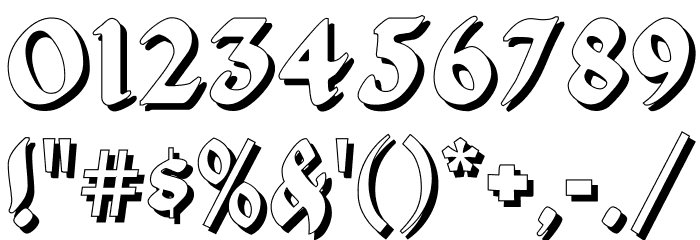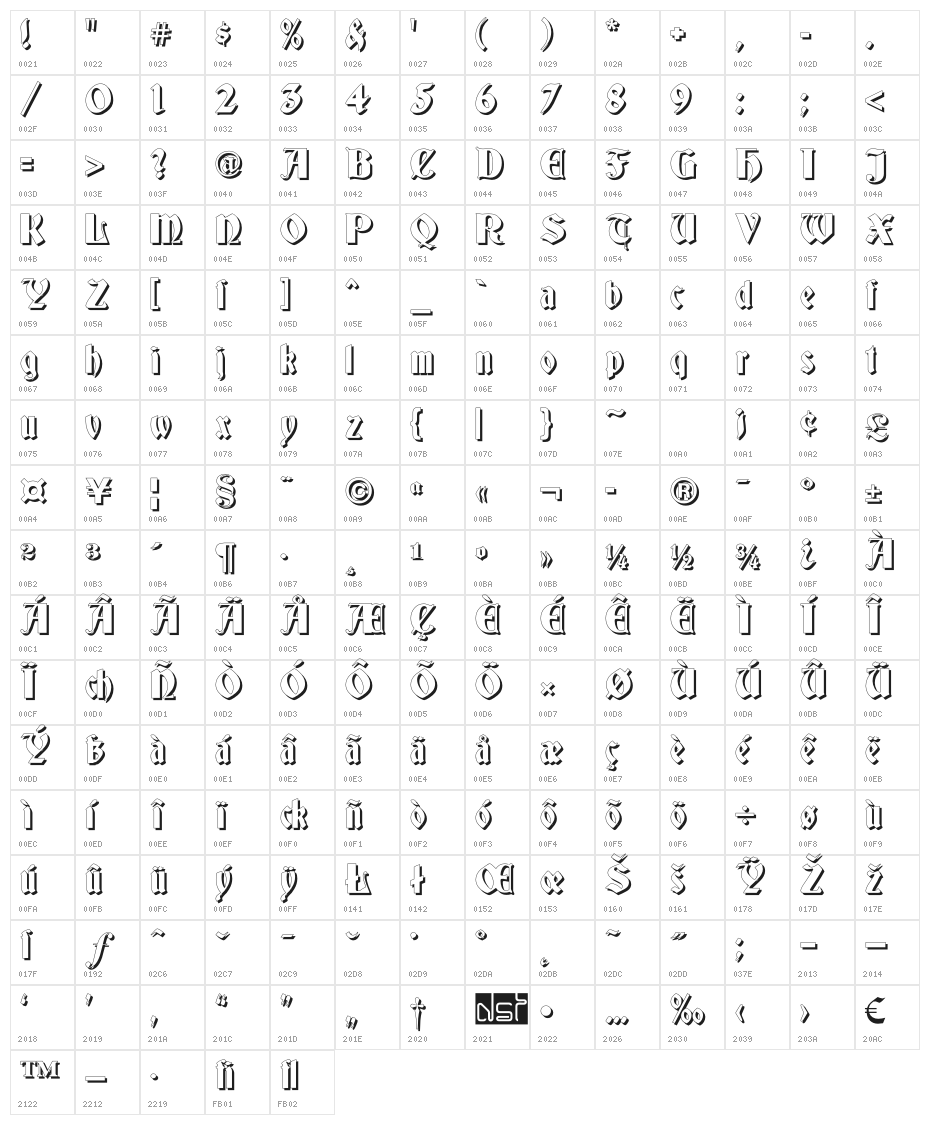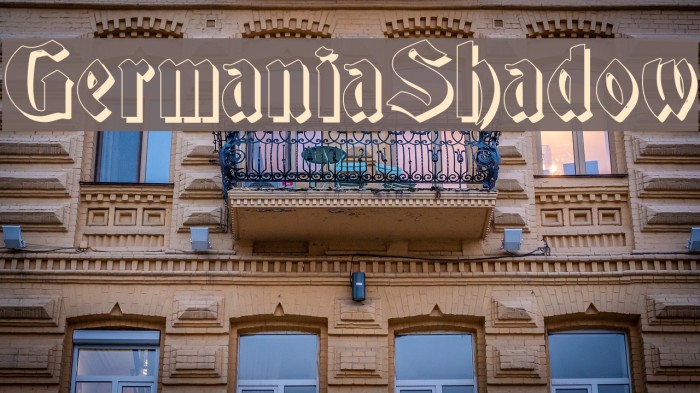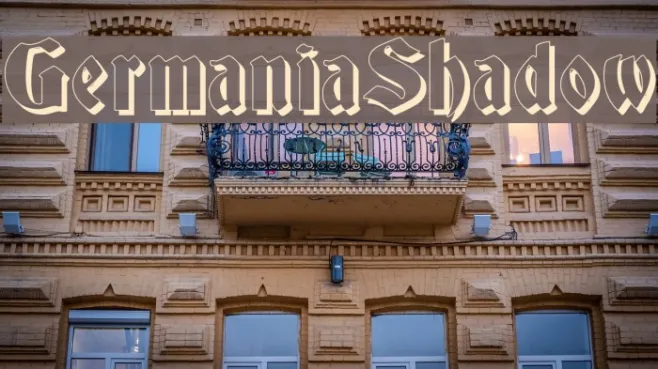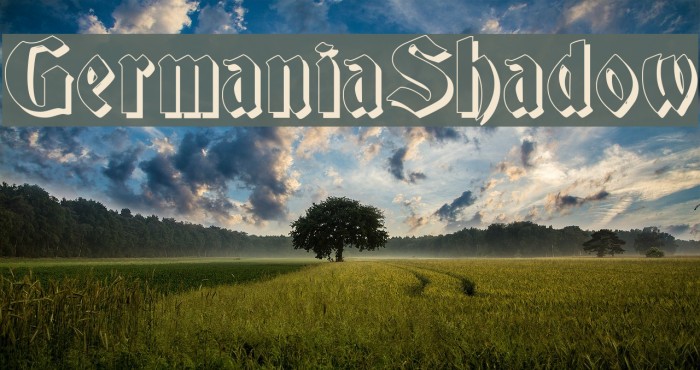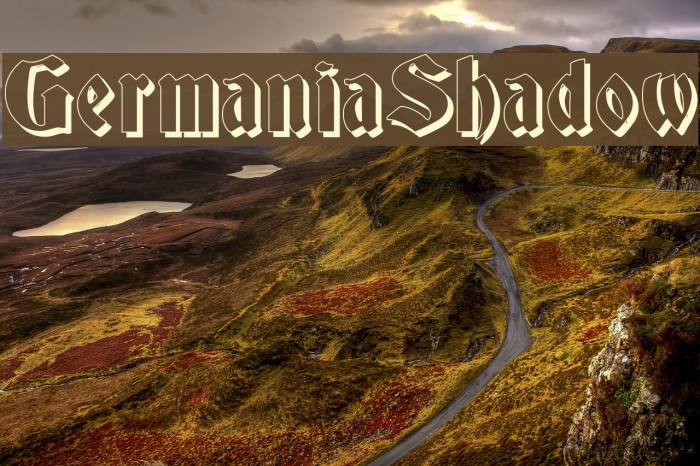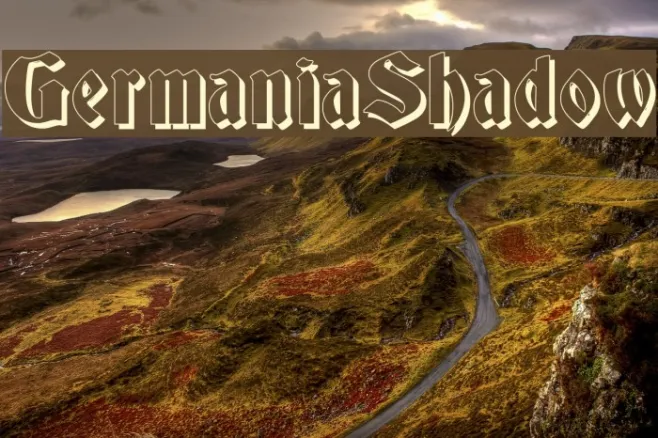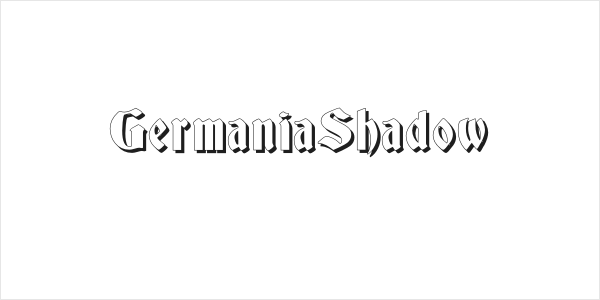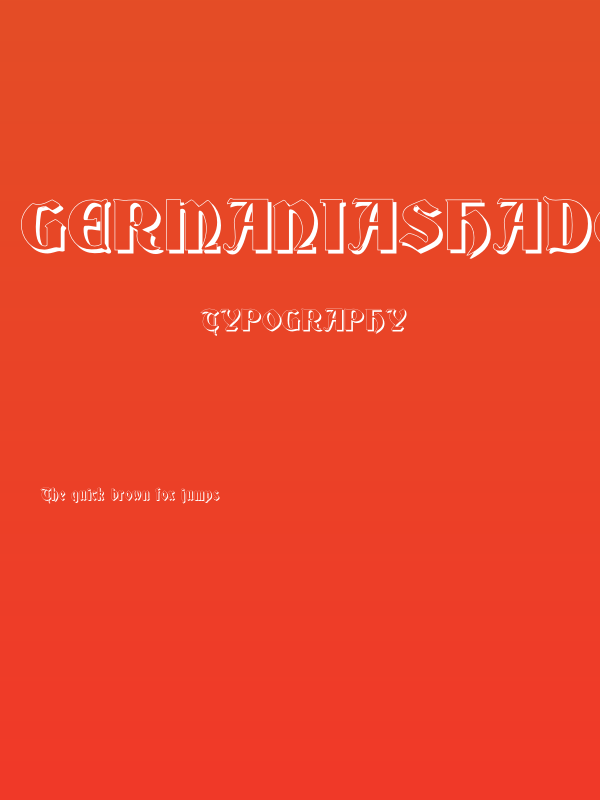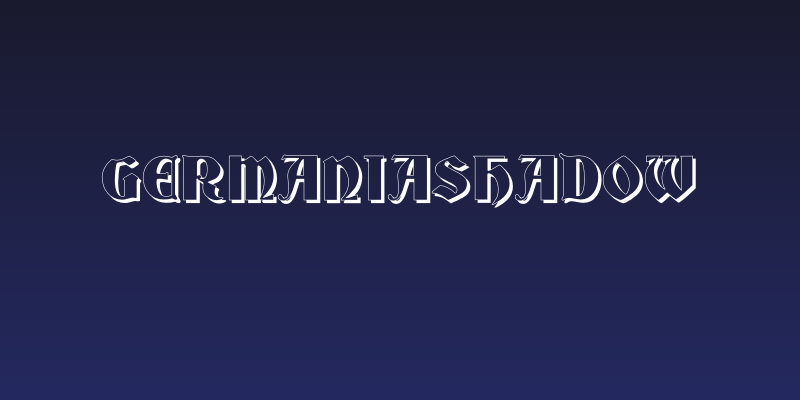
GermaniaShadow Font
GermaniaShadow Description
This font features a bold, dramatic style with a distinct shadow effect that gives it a three-dimensional appearance. The characters are reminiscent of traditional blackletter typefaces, with sharp angles and intricate details that evoke a sense of historical elegance. The uppercase letters are particularly ornate, with flourishes and embellishments that add to the overall decorative feel. The lowercase letters maintain the same level of detail, ensuring consistency throughout the typeface. Numbers and special characters are designed to match the elaborate style, making this font suitable for projects that require a touch of sophistication and grandeur.